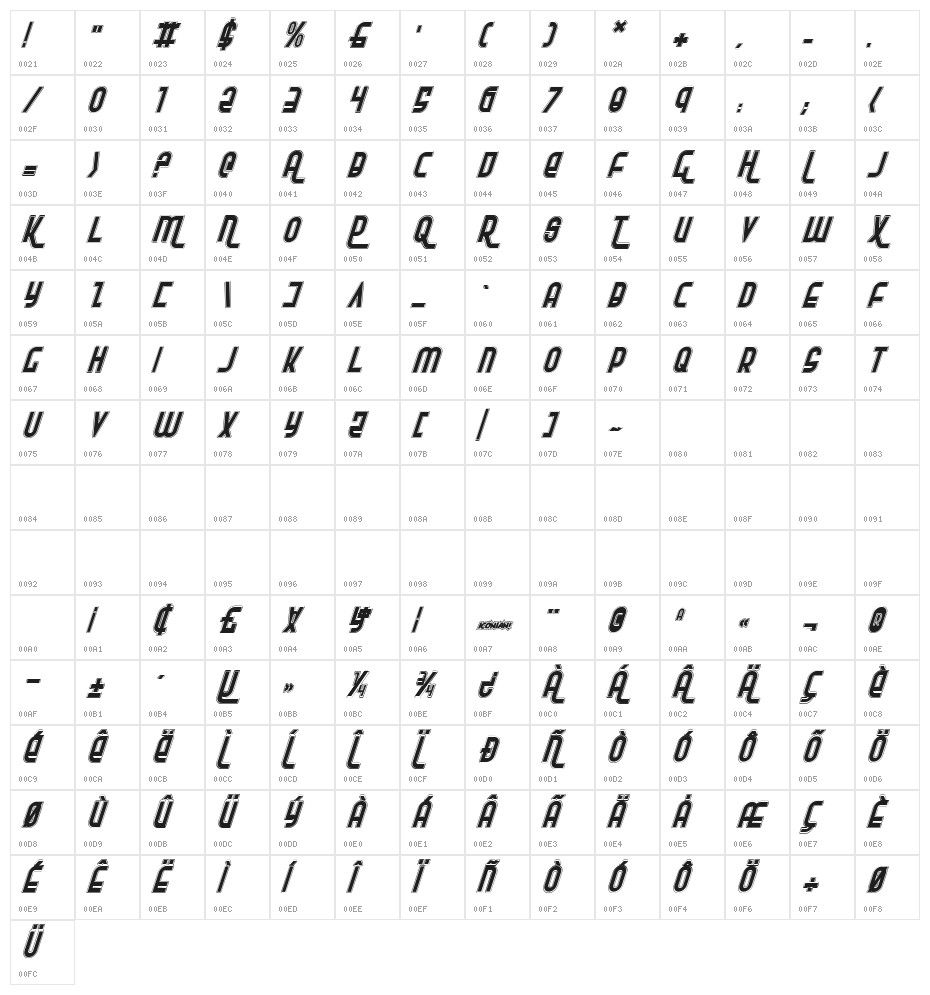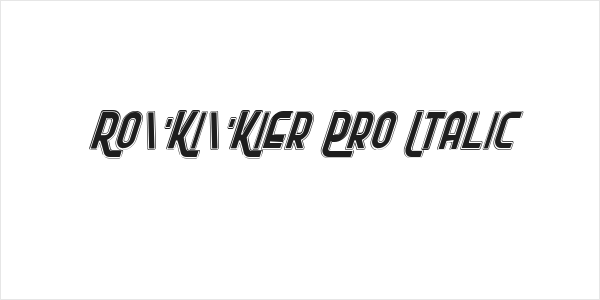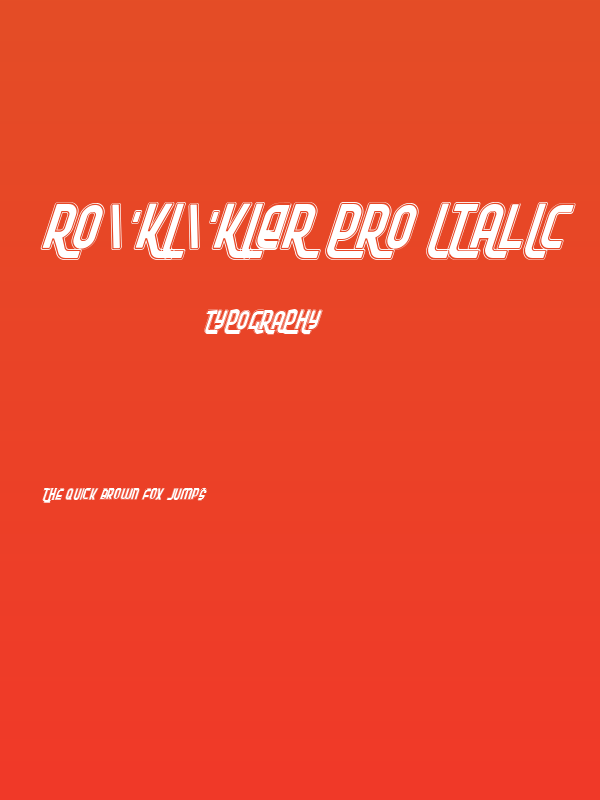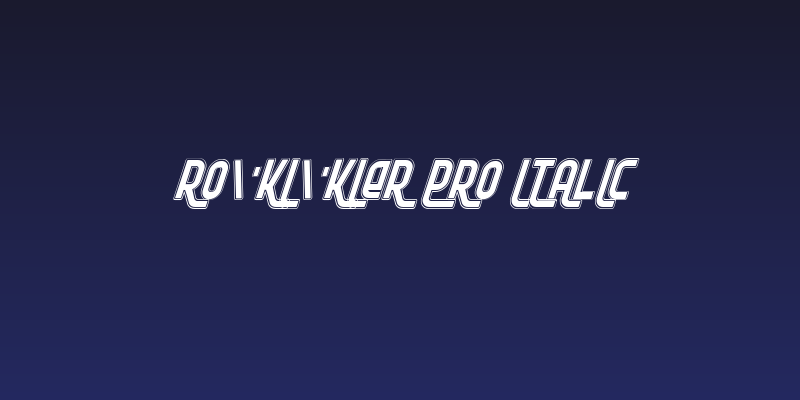
Ro'Ki'Kier Pro Italic Font
Ro'Ki'Kier Pro Italic Description
This font features a bold and dynamic design with a distinct italic slant, giving it a sense of movement and energy. The characters are outlined, creating a layered effect that adds depth and dimension. The strokes are thick and consistent, providing a strong visual impact. The overall style is modern and futuristic, making it suitable for projects that require a bold statement. The font includes a full set of uppercase and lowercase letters, numbers, and a variety of special characters, ensuring versatility in design applications.
| Proposed Projects | Ideal for sports branding, futuristic designs, video game titles, and dynamic posters. |